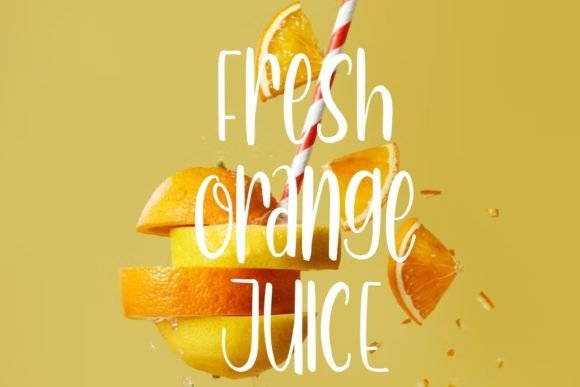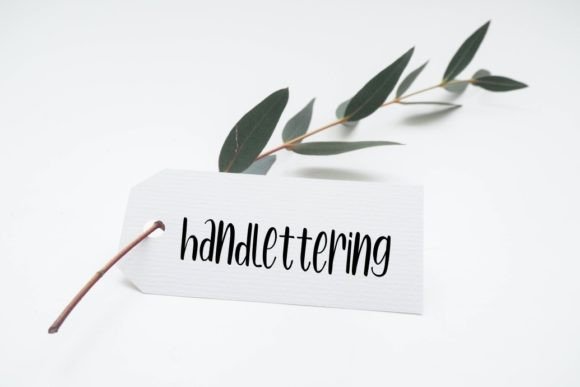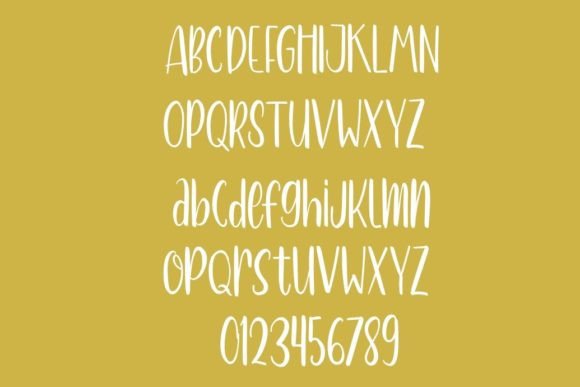
About Summer Paradise Font
“Summer Paradise” is a cute and friendly handwritten font that adds a touch of charm to your design projects. With its curvy, readable, and down-to-earth style, this font has the ability to make your designs look gorgeous and approachable.
The appeal of “Summer Paradise” lies in its ability to convey a sense of warmth and friendliness. Each character is thoughtfully crafted to exude a friendly and approachable vibe, making it an ideal choice for projects where you want to create a welcoming and engaging impression. Whether you’re working on digital or print materials, “Summer Paradise” offers a versatile and stylish script that adds a touch of cheerfulness to your content.
For a wide range of design applications, including branding, product designs, promotional materials, and more, “Summer Paradise” provides the creative freedom to make your projects stand out. Its friendly handwritten style can enhance the visual appeal of your designs and effectively communicate your message to your audience.
In summary, “Summer Paradise” is a valuable font that brings warmth and approachability to your creative work. Its cute and friendly script style makes it suitable for various applications, and its ability to convey a welcoming vibe sets it apart. With “Summer Paradise” in your font collection, your design projects will exude a sense of friendliness and charm that leaves a lasting impression.